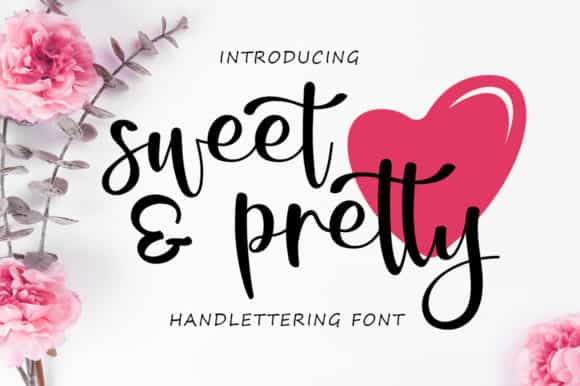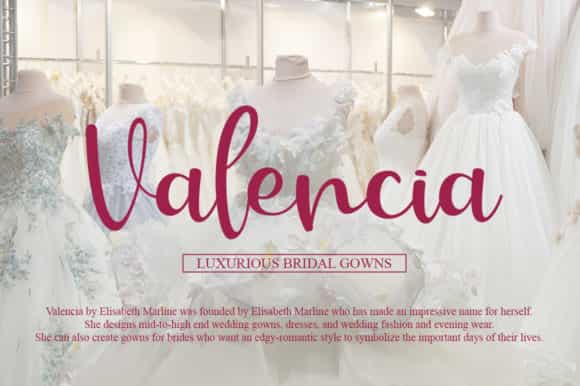
The script, Sweet & Pretty is, as the name implies cute and picturesque and full of good vibes. Sourced from its VERY close proximity to areas boasting a ‘gangsta’ vibe, it has a distinctly daring feel to it!